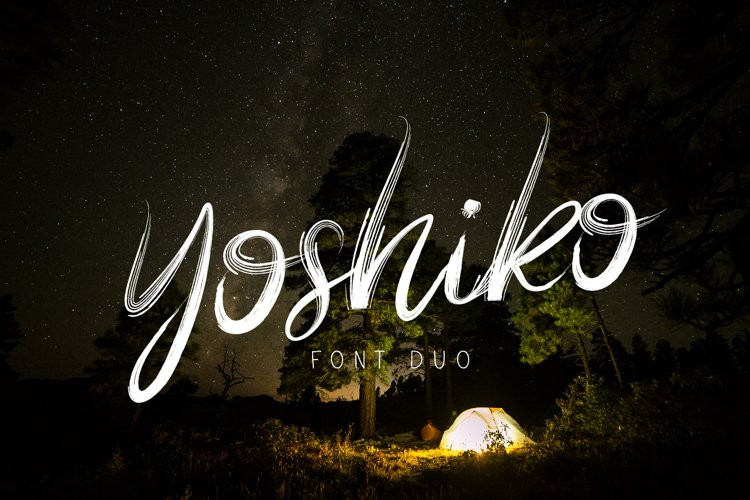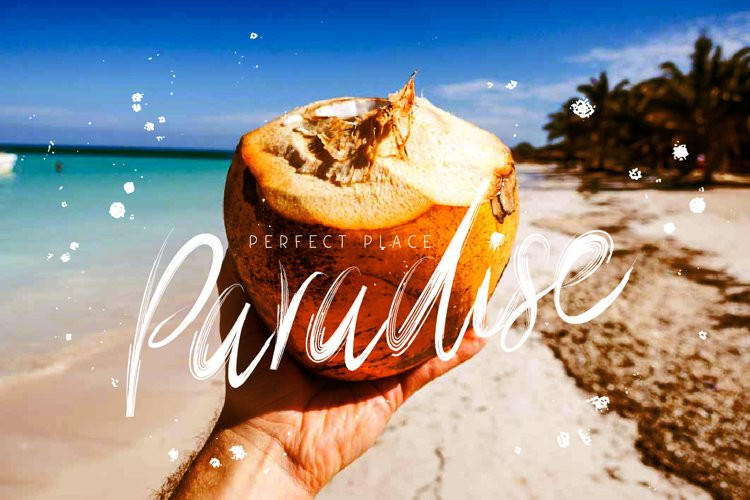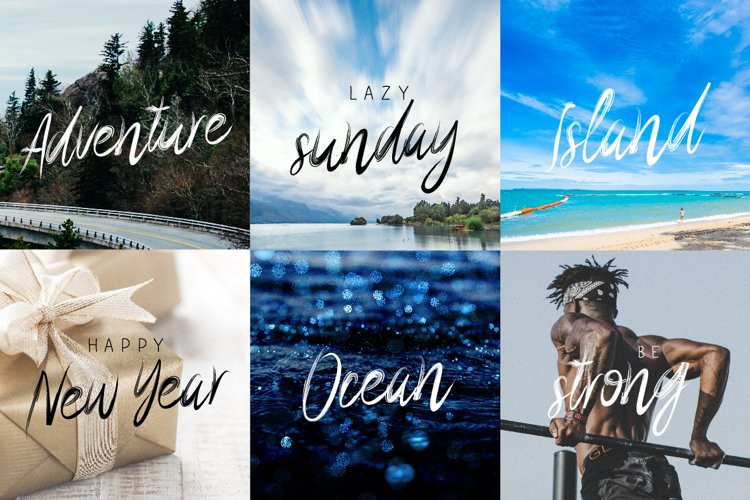
Yoshiko Font
Yoshiko Font Duo is a wonderful tandem of handbrushed script and linear font.
Ideal for logos, product packaging, t-shirt, handwritten quotes, header and applicable for any graphic design. Yoshiko Font Duo comes with uppercase and lowercase characters, punctuation, numeral and ligatures.